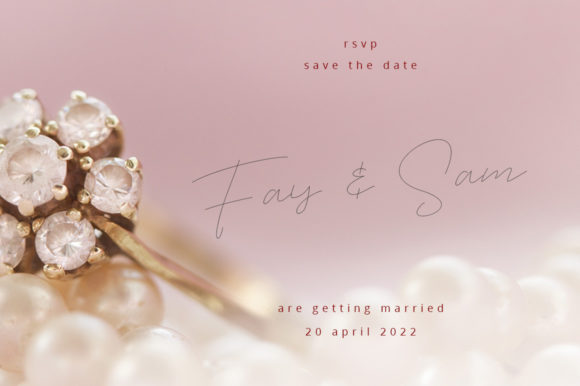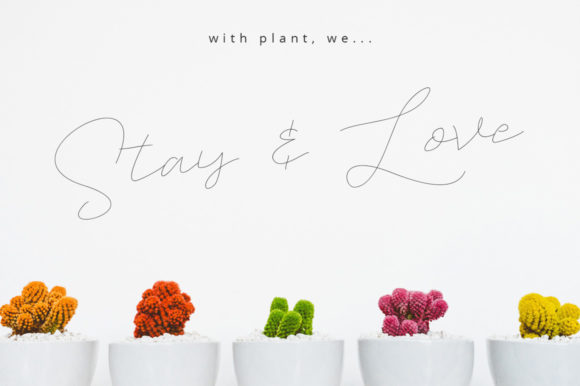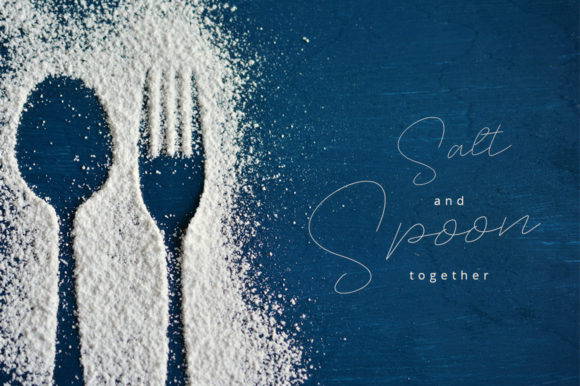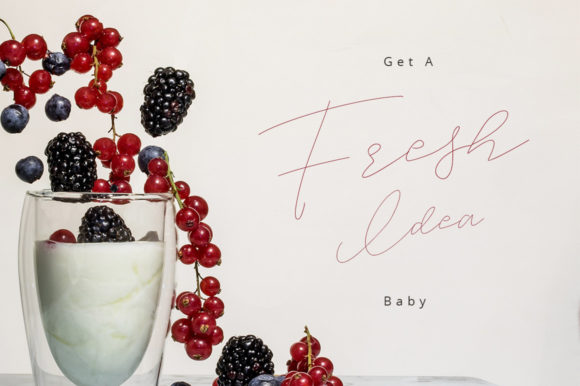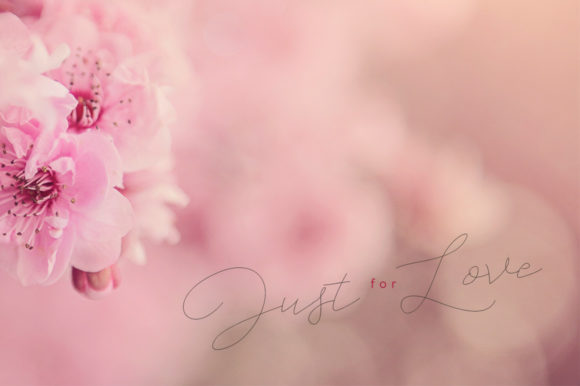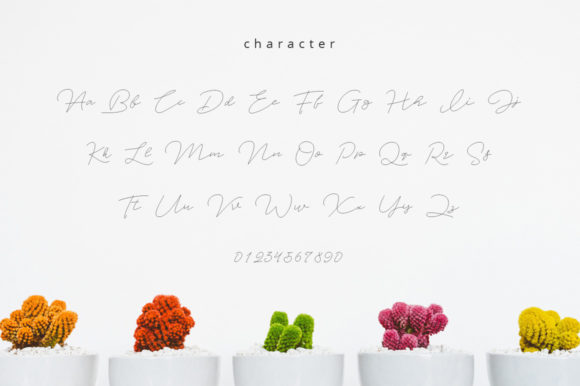
Introduction to Jet Seat Font
Jet Seat Script is our latest product that has playful characters with handwritten style.
This font is very suitable for beautiful logos, invitations, posters, magazines, and photography Jet Seat Script goes with monoline signature and feminine script, ready to give your design project a fresh and playful style.
Key Features of Jet Seat Font